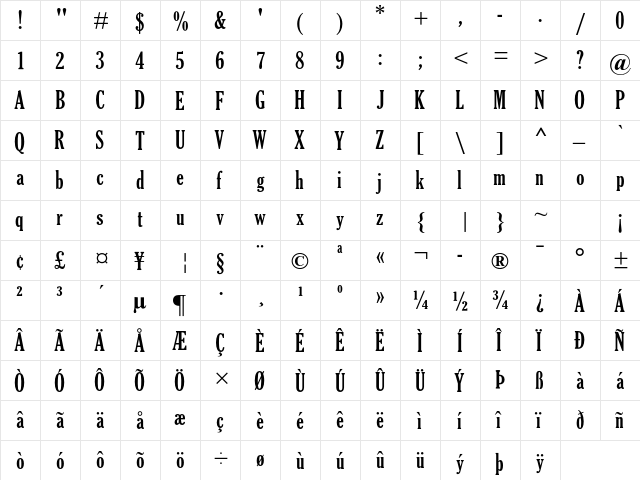
Gloucester MT Std Bold ExtCond
| Foundry | Agfa Monotype Corporation |
Design Context for Gloucester MT Std Typeface
Gloucester MT Std offers clean, dependable letterforms without strong stylistic allegiance, making it a practical choice for designers who need flexibility. Its bold stroke weight gives it real presence on the page. Its narrow stance lets it pack a punch even in space-constrained designs.